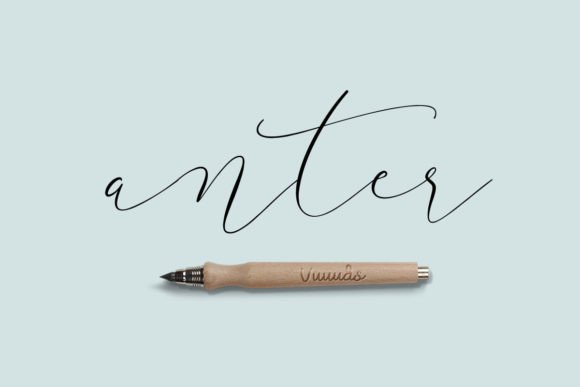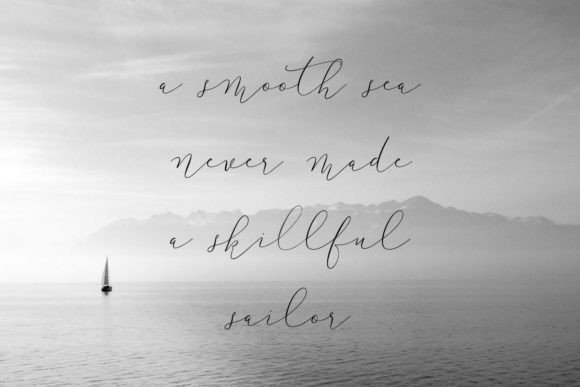
About Anter Font
Introducing Anter, a modern script font meticulously crafted to enhance the beauty of your text. Every single letter has been thoughtfully designed, resulting in a font that is perfect for a wide range of projects. With its modern script style, Anter is a versatile choice that can elevate various design endeavors, including photography, watermarks, quotes, blog headers, posters, weddings, branding, logos, fashion, apparel, letters, invitations, stationery, and more.
The modern script style of Anter brings a contemporary and stylish aesthetic to your text. It is a font that stands out with its clean lines and fluid strokes, making it suitable for projects that demand a sophisticated and trendy appearance.
For photography projects, Anter adds a touch of elegance to watermarks, ensuring that your visuals are not only captured but also presented with a sense of style. The font’s modern script enhances the overall aesthetic of your photographs, creating a cohesive and visually pleasing look.
In quotes and blog headers, Anter becomes a captivating choice. Its modern script style conveys a sense of refinement and creativity, making your quotes and blog headings visually appealing and memorable.
For wedding-related projects, from invitations to stationery, Anter brings a touch of sophistication. The font’s clean and modern design complements the elegance of wedding materials, ensuring a cohesive and stylish presentation.
The versatility of Anter extends to branding and logo design, where its modern script style helps create a distinctive visual identity. Its PUA encoding allows easy access to all glyphs and swashes, providing flexibility for customization and enhancing the uniqueness of your brand.
Whether used in fashion, apparel, letters, or any other design context, Anter offers a modern and stylish option. Its carefully crafted letters and smooth lines make it a font that is not only visually appealing but also easy to read.
In summary, Anter is more than just a font; it’s a modern script that enhances the beauty of your text across a diverse range of projects. Its PUA encoding ensures easy access to all the glyphs and swashes, making it a user-friendly choice for designers looking to add a touch of modern sophistication to their creations.